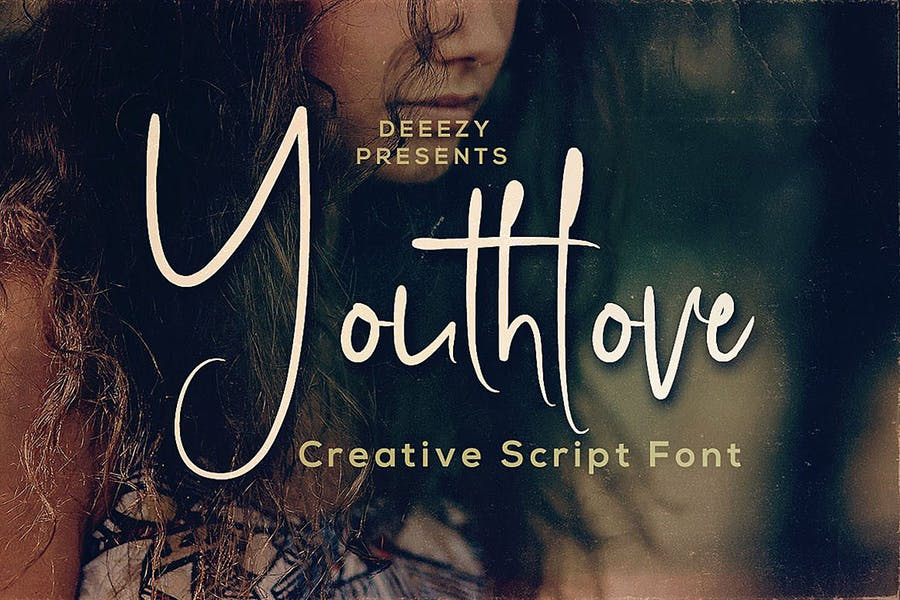
Youthlove Script Font
This charming script typeface is perfect for romantic wedding invitations, handwritten greeting cards, love letter designs, youthful branding projects, social media graphics, personal blog headers, romantic packaging, and heartfelt message designs.
What makes this font exciting is its authentic handwritten quality that captures the spontaneous energy and romantic spirit of youthful love letters. The flowing connections between letters and natural brush-like strokes create an intimate, personal feel that instantly connects with viewers on an emotional level, while the playful character variations add genuine handcrafted authenticity to any design project.
The Youthlove Script Font family includes regular and bold weights, along with decorative swashes, heart symbols, and romantic ornaments that enhance the script's emotional appeal and provide complete design flexibility for love-themed projects.
The endearing personality of Youthlove Script Font shines through its organic flow and natural imperfections that mimic authentic pen-and-paper writing. Each letter features subtle variations and connecting strokes that create realistic handwriting effects, making every word appear genuinely hand-lettered. This attention to authentic detail makes it particularly suitable for love story books, romantic restaurants, couple's photography branding, and Valentine's Day marketing campaigns requiring sincere emotional resonance.
Contemporary designers will find this font invaluable for projects demanding personal touch and emotional authenticity. From romantic movie posters to couple's retreat materials, from love-themed merchandise to intimate event signage, Youthlove Script Font delivers consistent warmth and charm. The font's extensive ligature set and contextual alternates ensure natural letter connections, while decorative elements like flourishes and symbols provide additional creative options for crafting truly personalized romantic communications that speak directly to the heart.